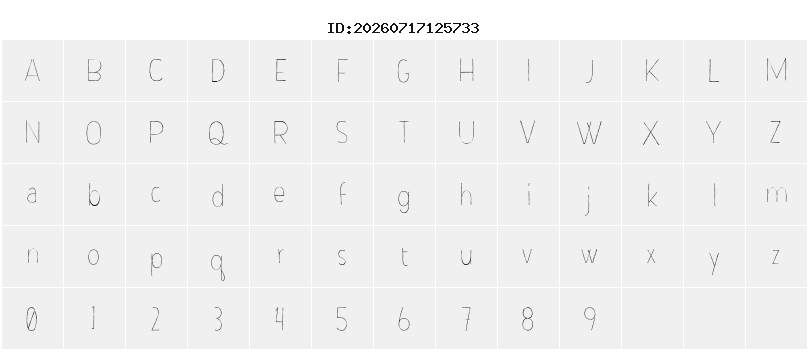
Bobby Corwin Preview
• Font Name: Bobby Corwin
• Full Font Name: Bobby Corwin
About Bobby Corwin.ttf
Bobby Corwin.ttf is a modern, elegant sans-serif font designed for ultimate readability and visual harmony. Perfect for branding, headlines, web design, and print materials.